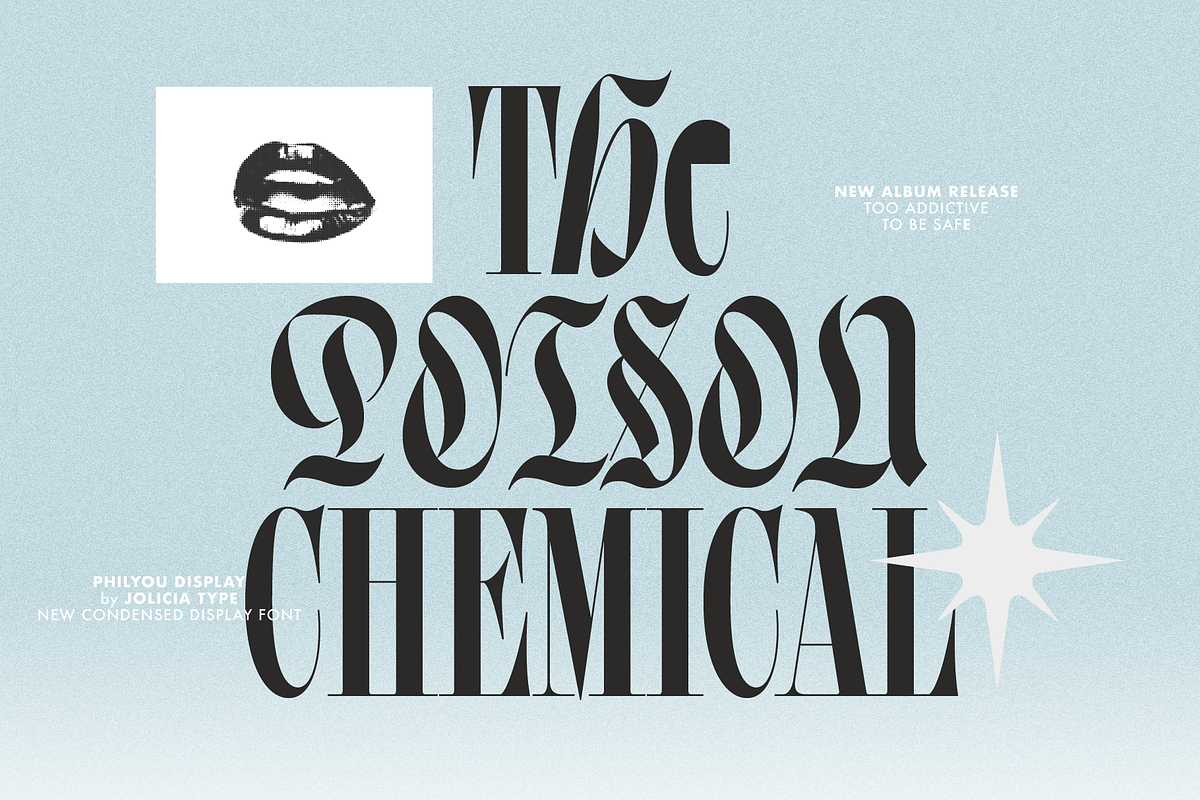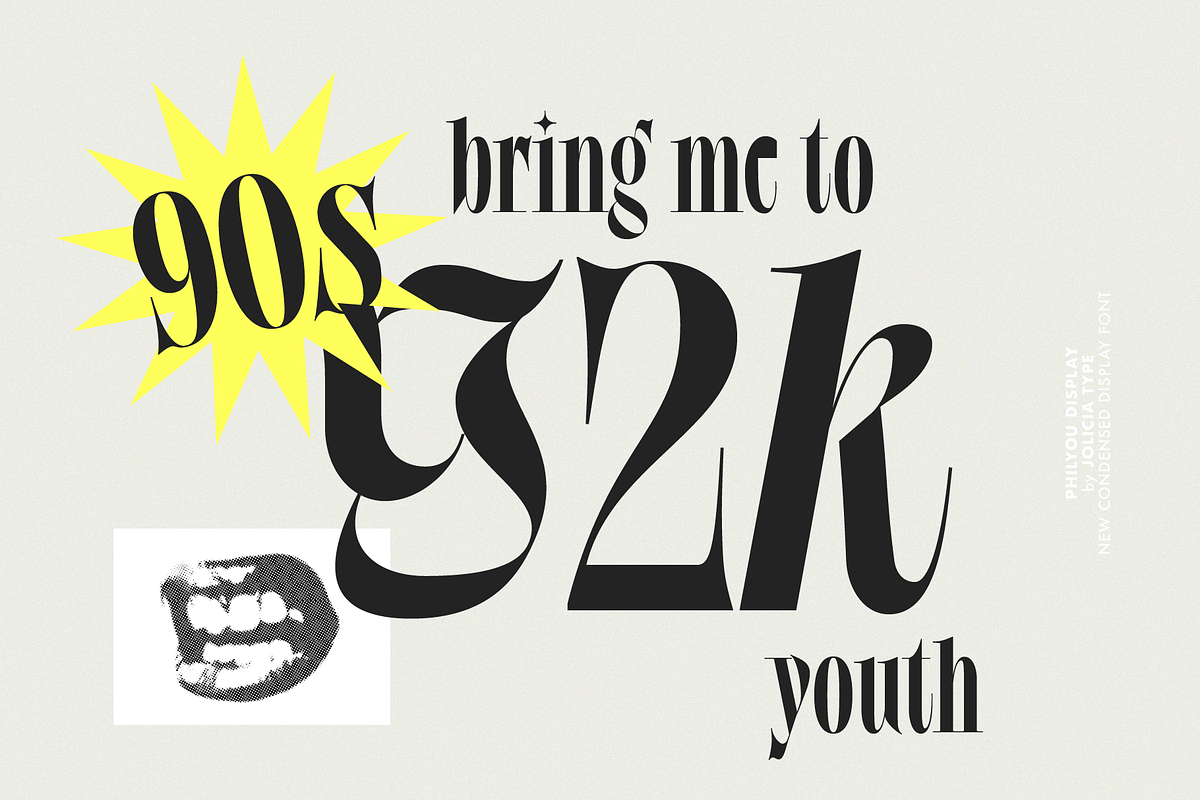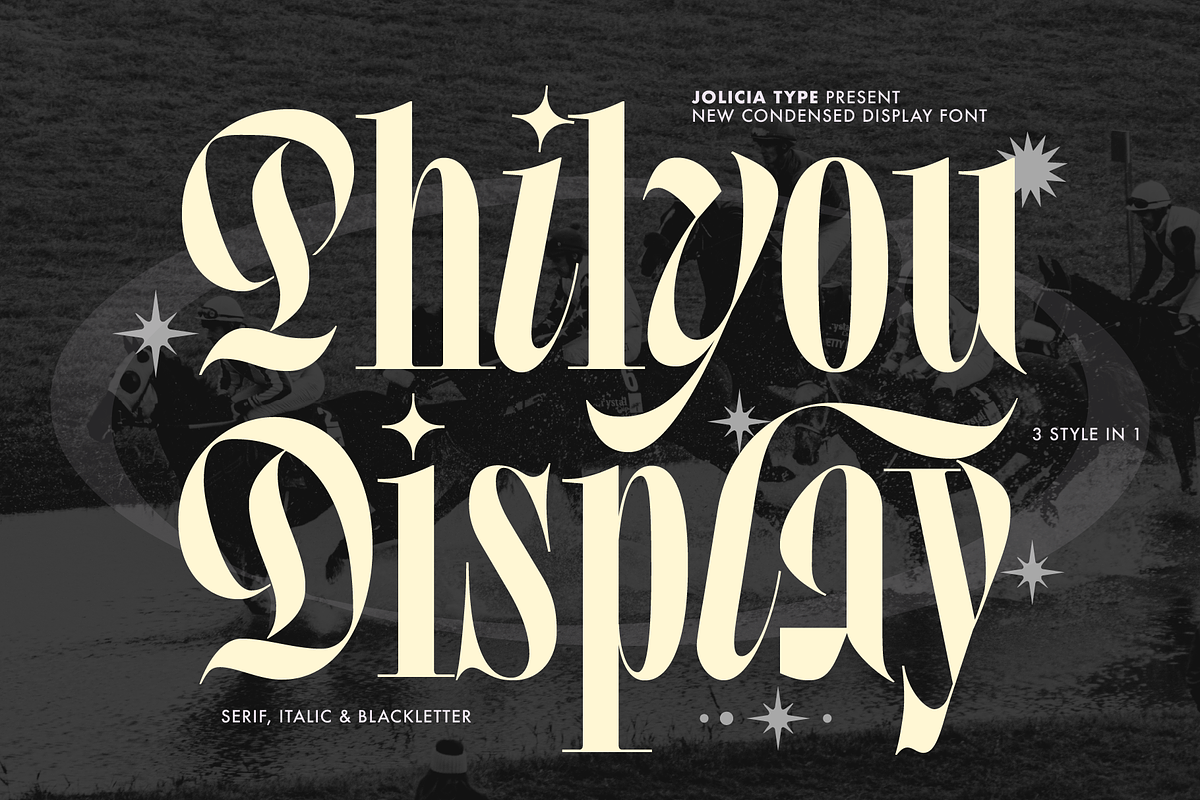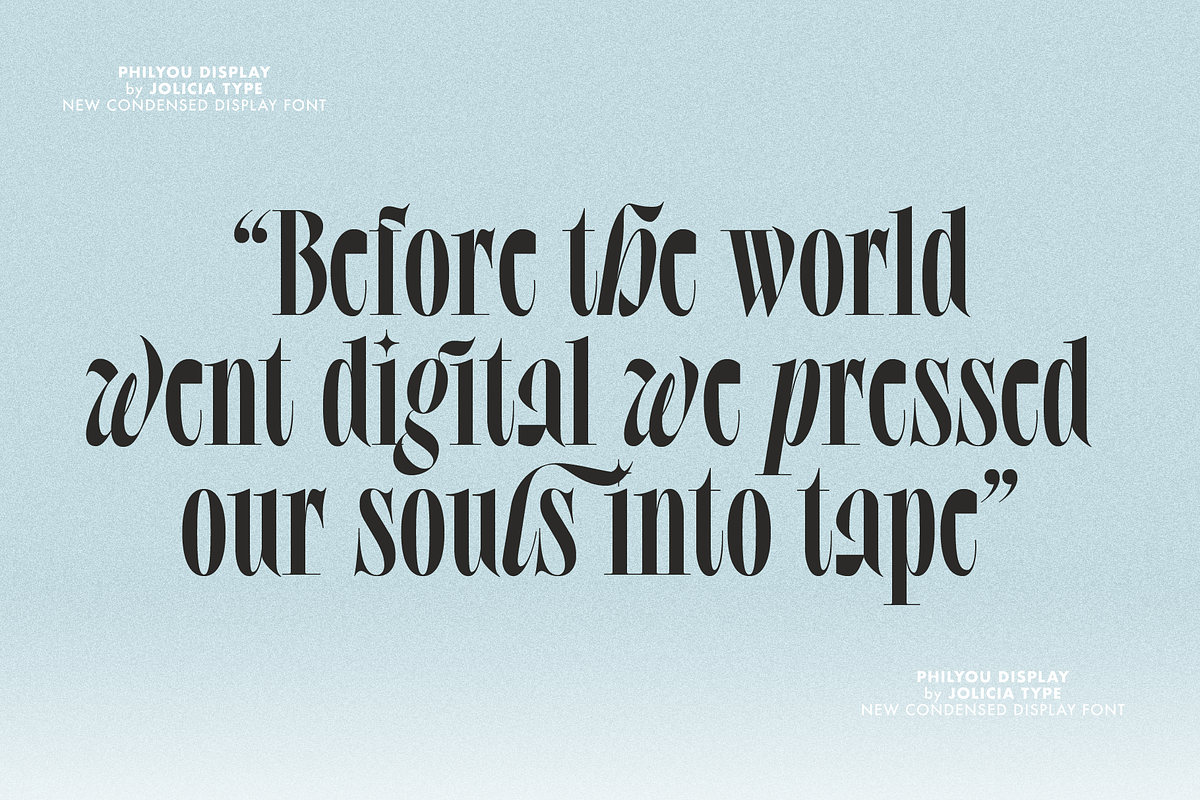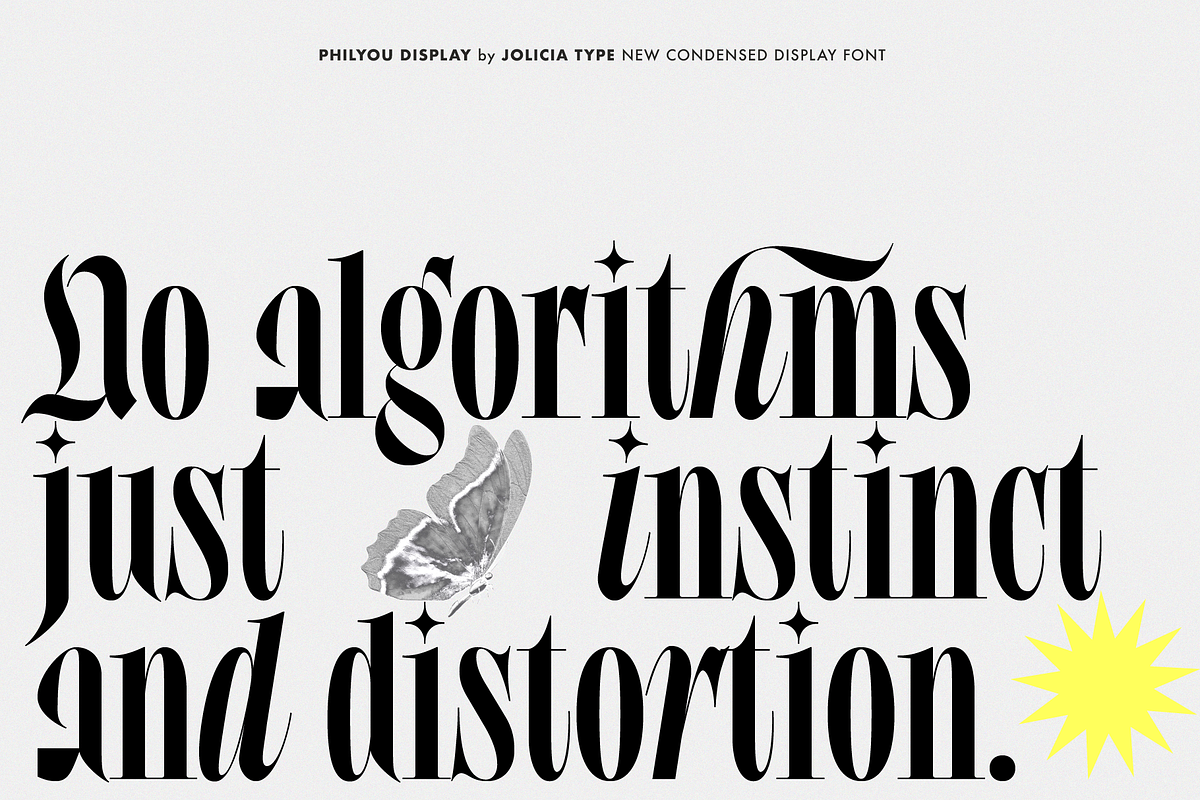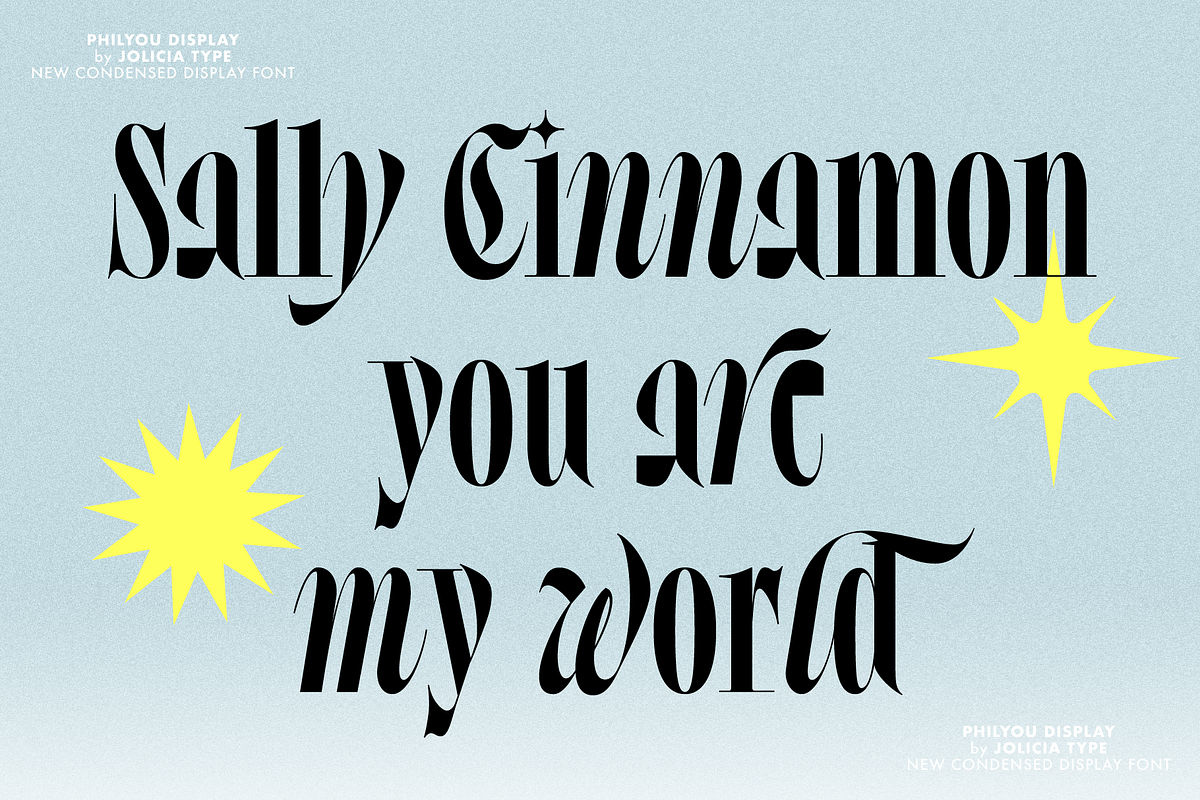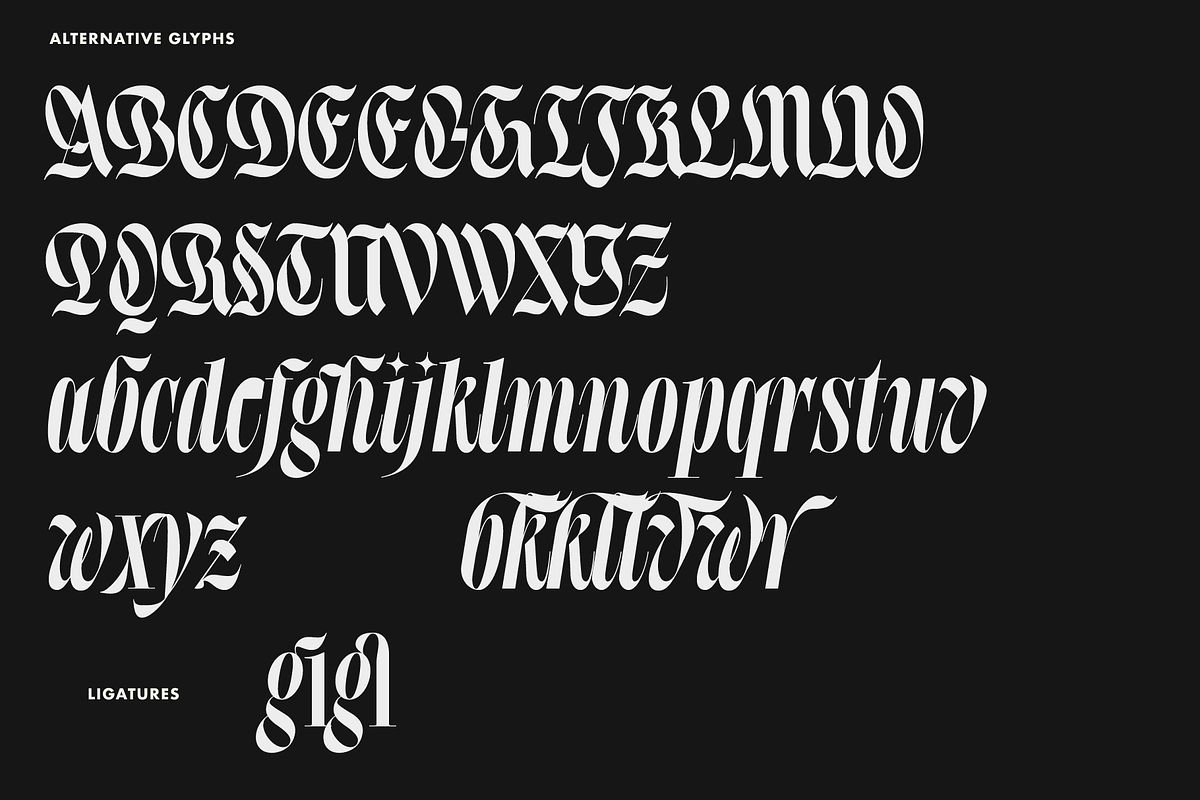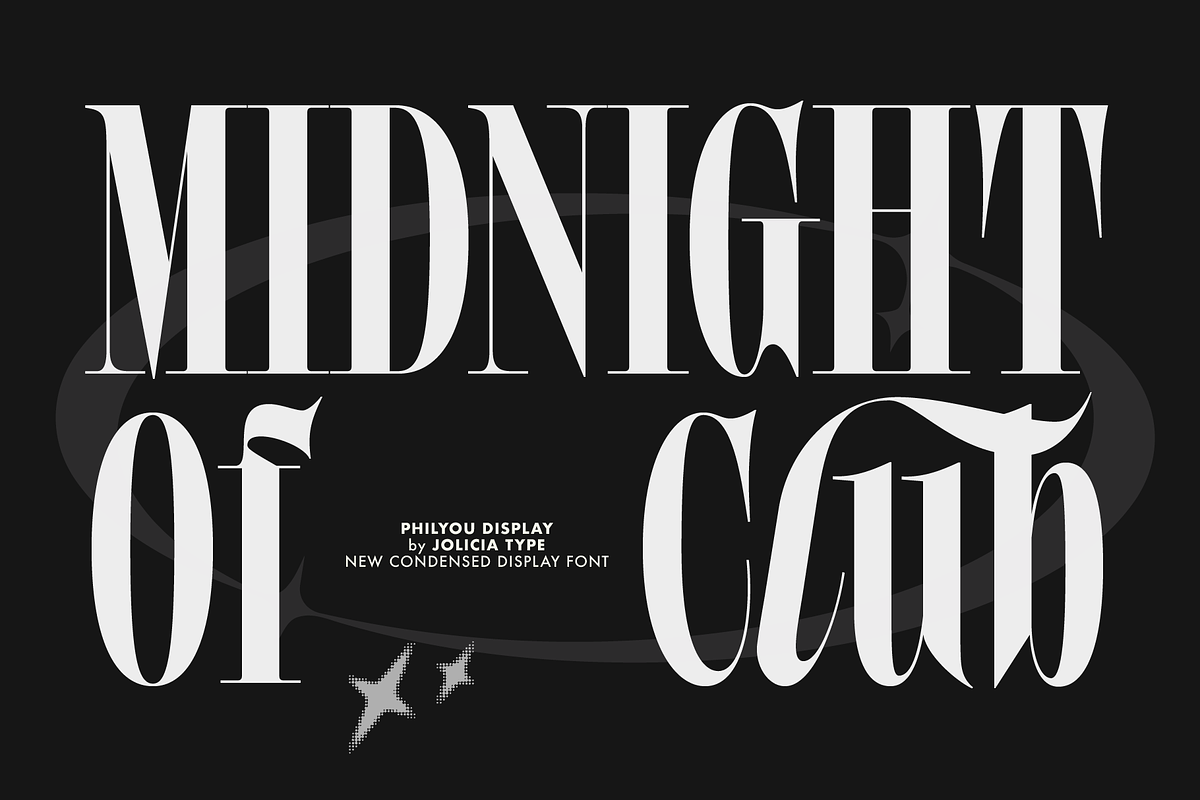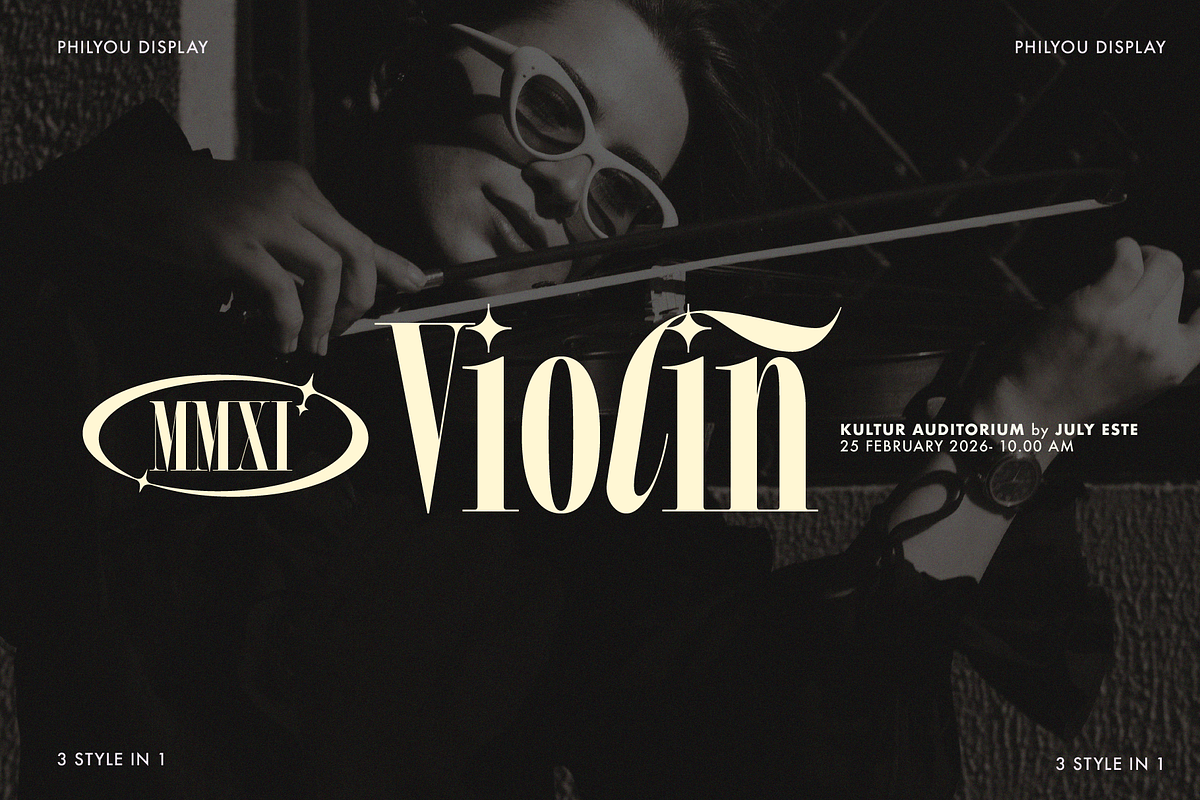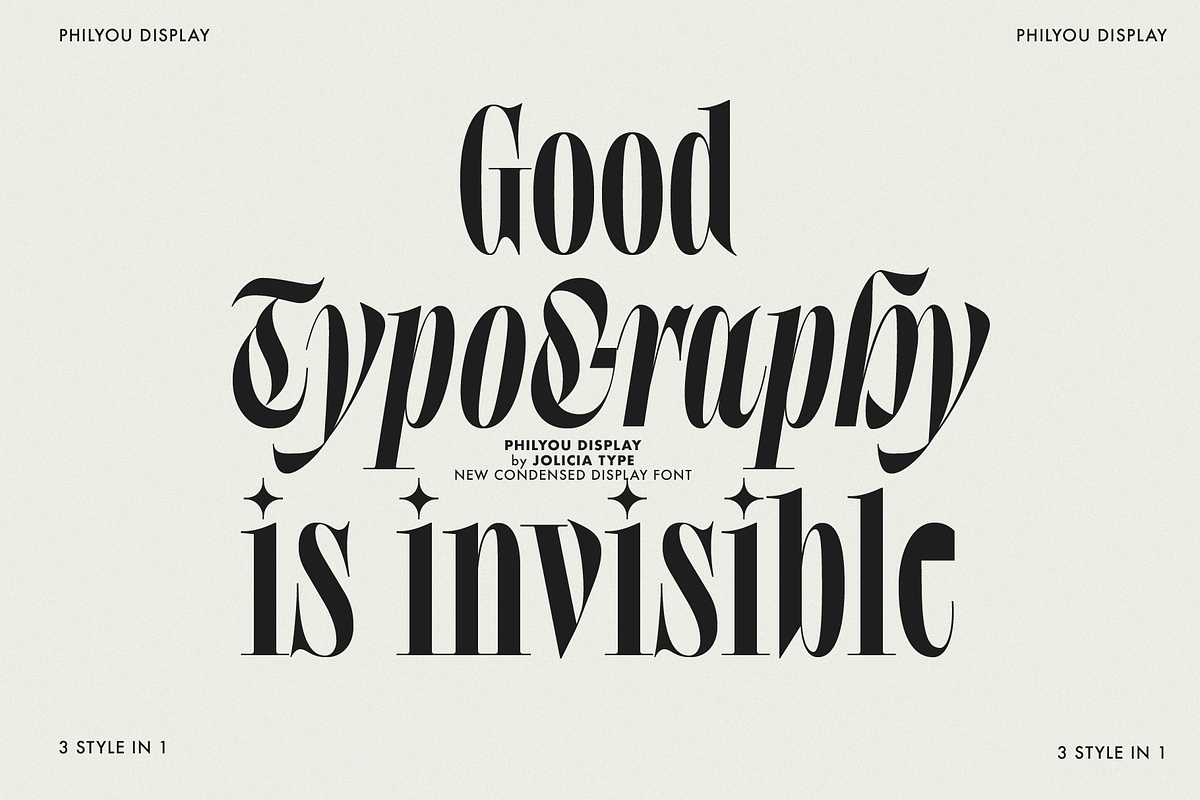
Philyou Display | Clean & Expressive
3 distinct styles in 1 typeface. Philyou Display is a condensed serif display typeface that brings together classic Didot-style elegance, Blackletter-inspired uppercase alternates, and italic lowercase alternates into a single, expressive font family.
The default style is rooted in Didot aesthetics, featuring high stroke contrast, and tall condensed proportions. This foundation delivers a refined, luxurious, and editorial feel perfect for premium branding, headlines, fashion layouts, and display typography. As a bold visual contrast, Blackletter-style uppercase alternates introduce a dramatic, historical character, adding depth and personality while maintaining structural harmony with the condensed serif base.
For added flexibility, italic lowercase alternates are carefully designed as true italics, not mechanically slanted. These alternates provide a smoother, more dynamic rhythm, enriching typographic compositions and offering expressive options for emphasis and variation. With its concept of three styles unified in one typeface—Didot serif, Blackletter uppercase alternates, and italic lowercase alternates
Philyou Display balances classic luxury, historical character, and modern versatility, making it a powerful choice for contemporary display design.